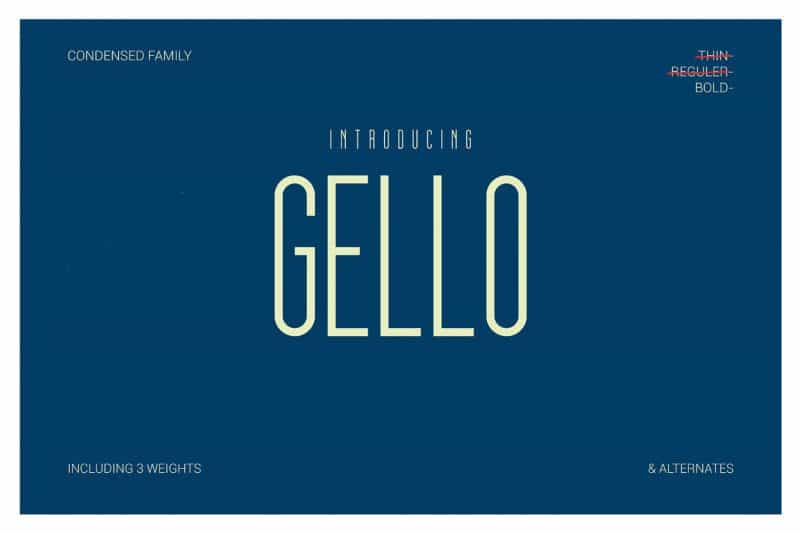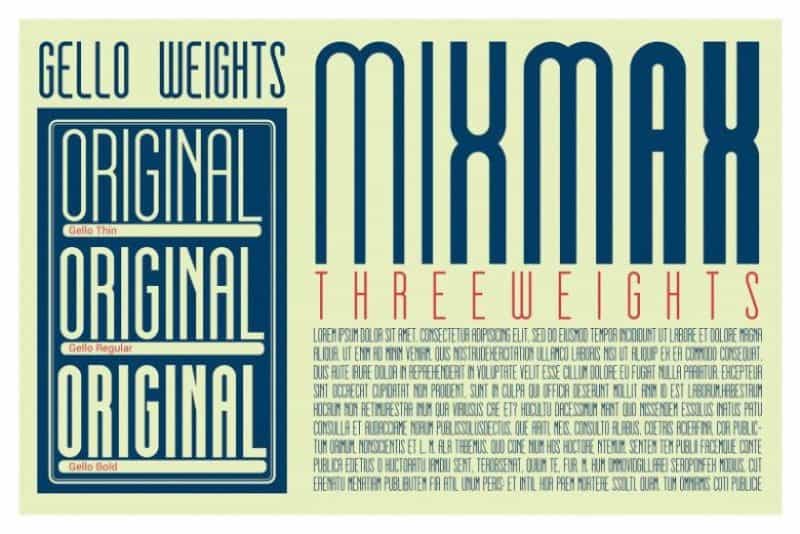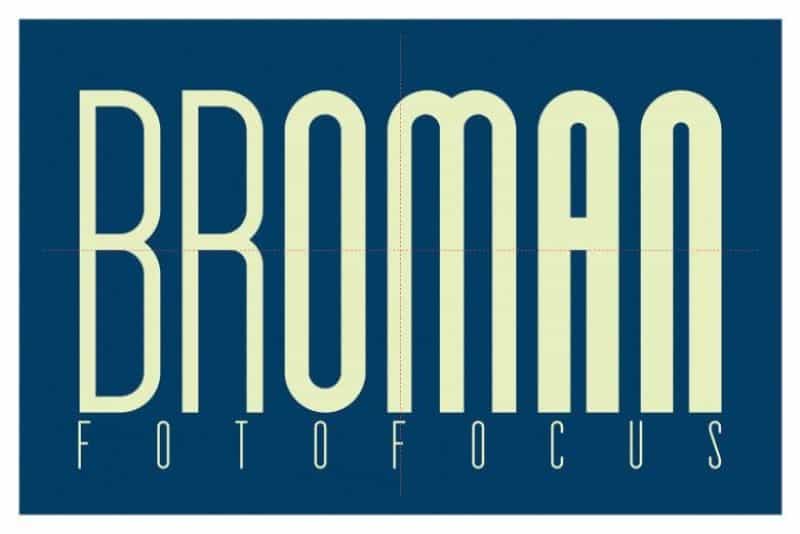
It must not look simple yet it has the ability to capture the attention of many people. Less is more. That is the reason why we would like to introduce you to the Gello. This font was created with the san serif style and has a noticeable slim and tall nature to it. It looks very clean and very sophisticated in a way that makes one think of an elegant hotel.